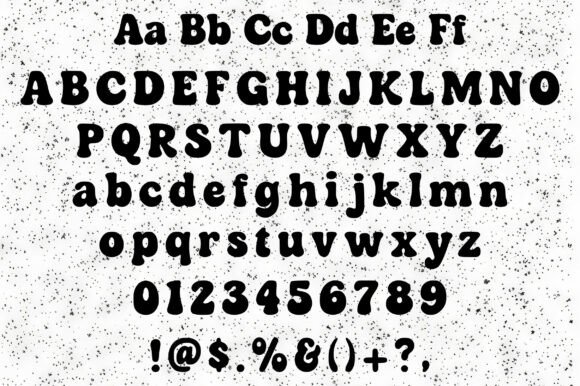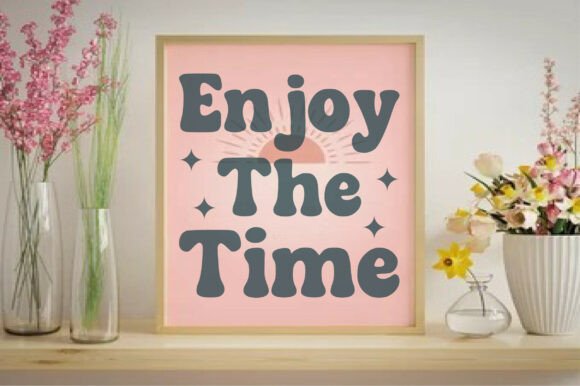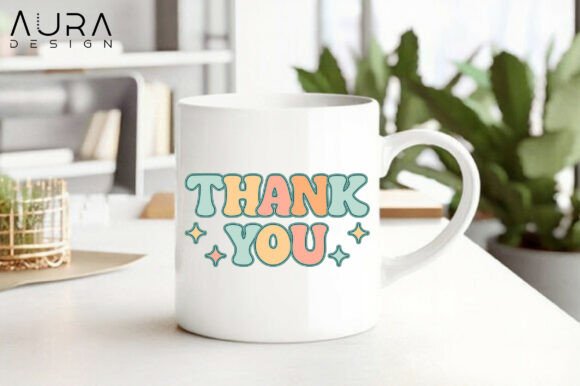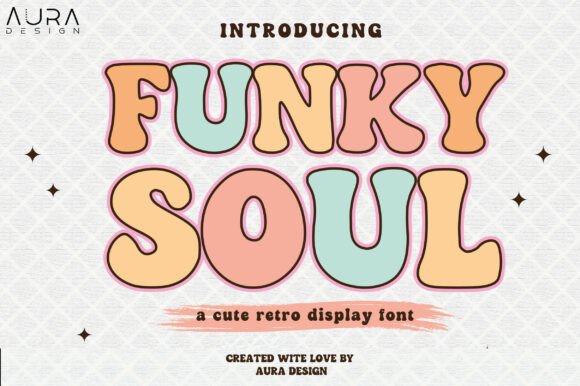
Funky Soul Font: The Ultimate Retro Display Font for Groovy Designs
Are you a designer or crafter looking for a font that exudes charm, positivity, and a dash of retro flair? Look no further than the Funky Soul Font! This bold and bubbly display font is perfect for creating groovy designs, quotes, shirts, and playful branding that will make your audience smile.
What is Funky Soul Font?
Funky Soul Font is a carefully crafted retro display font that embodies the spirit of the funky and soulful era of the 1960s and 1970s. Its unique and playful design makes it an excellent choice for designers and crafters who want to add a touch of nostalgia and whimsy to their work.
Key Features of Funky Soul Font
• Bold and Bubbly Design: Funky Soul Font features a bold and bubbly design that is sure to grab attention and make your designs pop.
• Retro Flair: The font’s retro flair is perfect for creating designs that evoke a sense of nostalgia and fun.
• Charm and Positivity: Funky Soul Font is full of charm and positivity, making it ideal for designs that aim to inspire and uplift.
• Playful and Fun: The font’s playful and fun design makes it perfect for creating designs that are light-hearted and humorous.
Uses of Funky Soul Font
Funky Soul Font is a versatile font that can be used for a wide range of design projects, including:
• Groovy Designs: Create eye-catching posters, flyers, and brochures that evoke the spirit of the 1960s and 1970s.
• Quotes and Sayings: Use Funky Soul Font to create inspiring and motivational quotes that will resonate with your audience.
• Shirts and Apparel: Design fun and playful t-shirts, hoodies, and other apparel that will make your customers smile.
• Playful Branding: Use Funky Soul Font to create playful and engaging branding materials, such as logos, business cards, and letterheads.
Why Choose Funky Soul Font?
There are many reasons why Funky Soul Font is an excellent choice for designers and crafters, including:
• Unique Design: Funky Soul Font features a unique and distinctive design that will set your designs apart from the crowd.
• High-Quality: Funky Soul Font is a high-quality font that is designed to produce crisp and clear results.
Tips for Using Funky Soul Font
Here are some tips for using Funky Soul Font to get the best results:
• Experiment with Colors: Funky Soul Font looks great in bold and bright colors, so don’t be afraid to experiment and find the perfect color scheme for your design.
• Play with Size: The font’s bold design makes it perfect for large and small sizes, so play around with different sizes to find the one that works best for your design.
• Combine with Other Fonts: Funky Soul Font pairs well with other fonts, so try combining it with a sans-serif font for a fun and playful look.
Funky Soul Font is a bold and bubbly retro display font that is perfect for designers and crafters who want to add a touch of charm, positivity, and retro flair to their designs. With its unique design, ease of use, and high-quality results, Funky Soul Font is an excellent choice for a wide range of design projects. So why not give it a try and see the funky and soulful difference it can make in your designs?